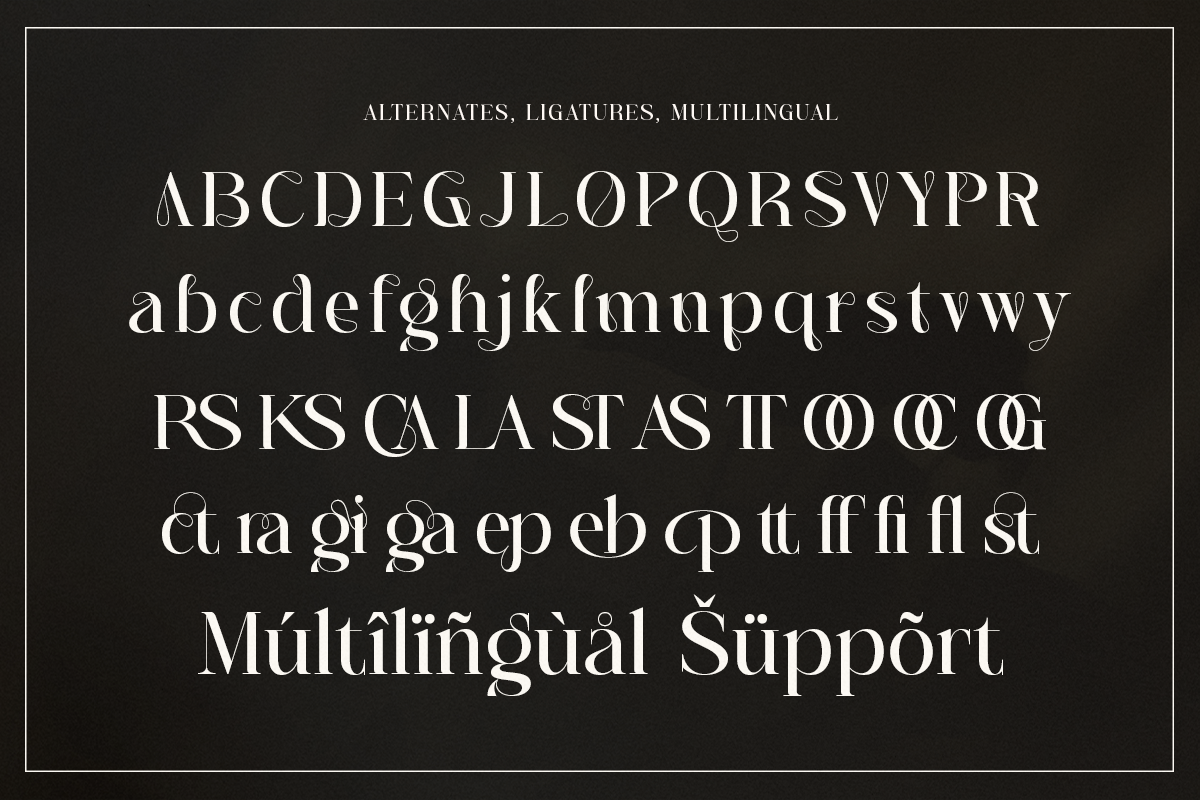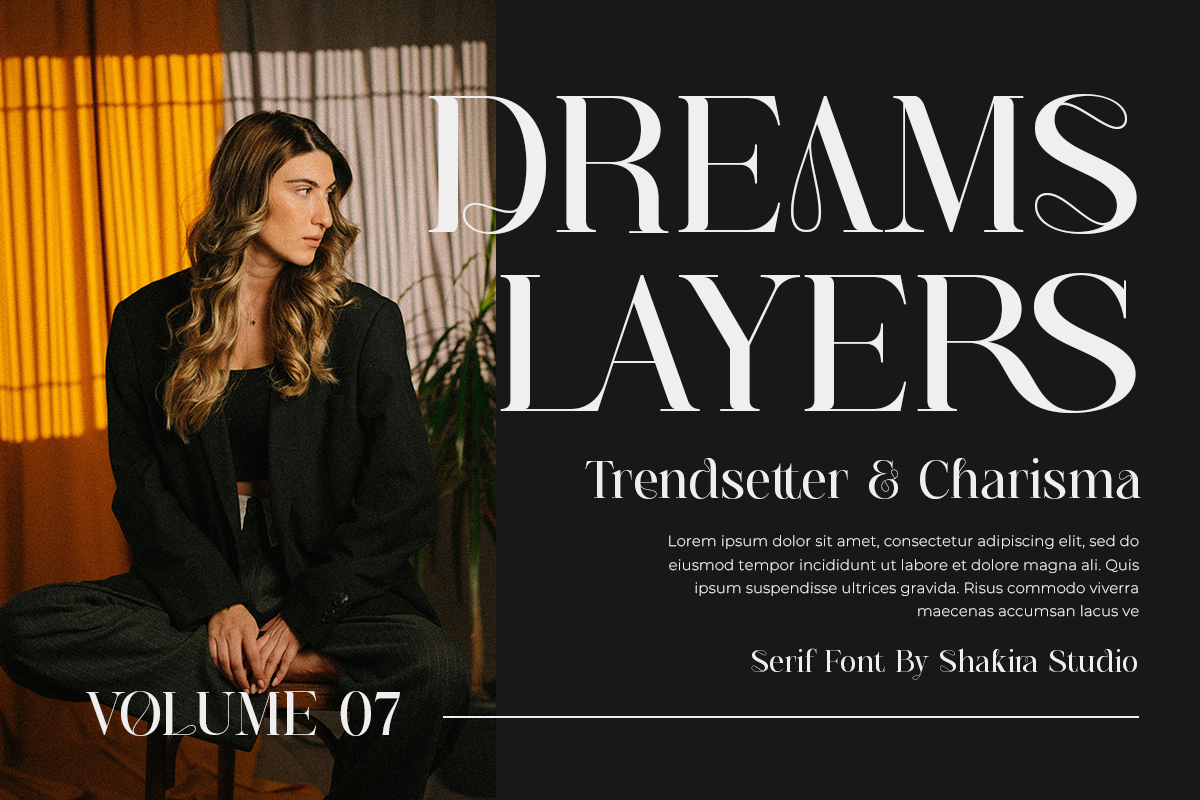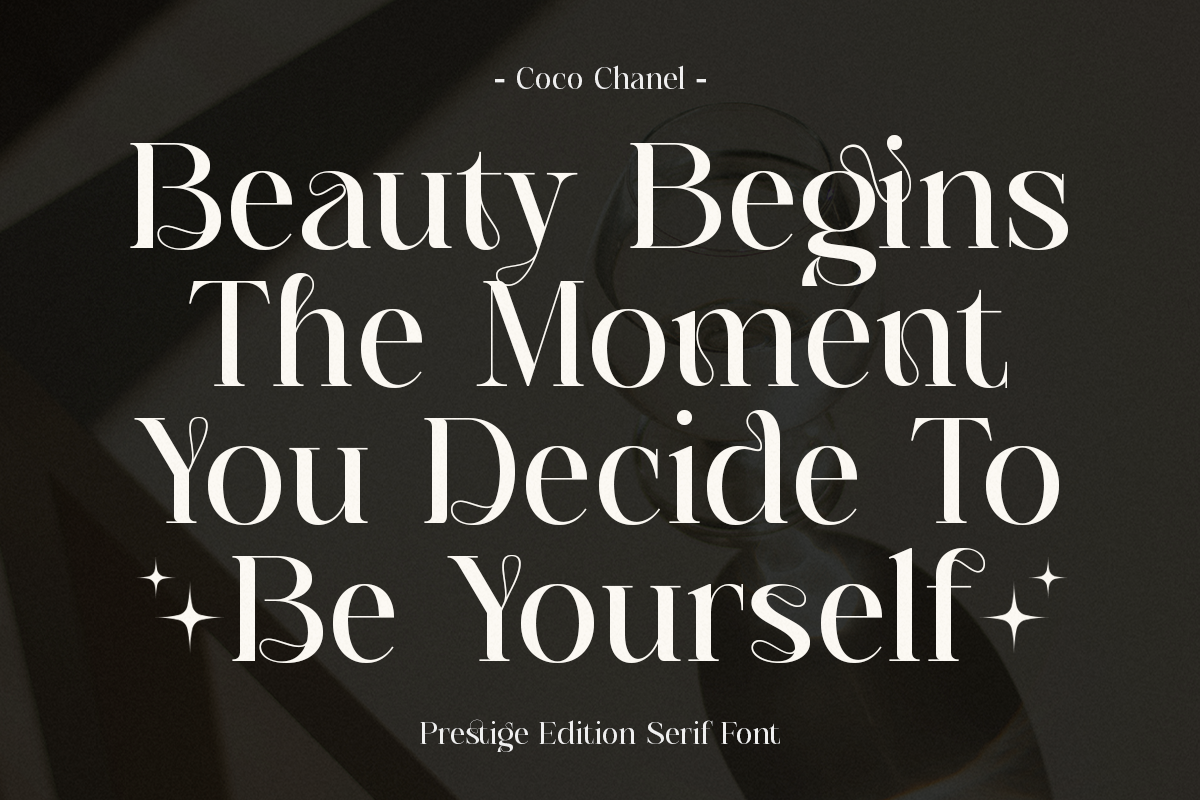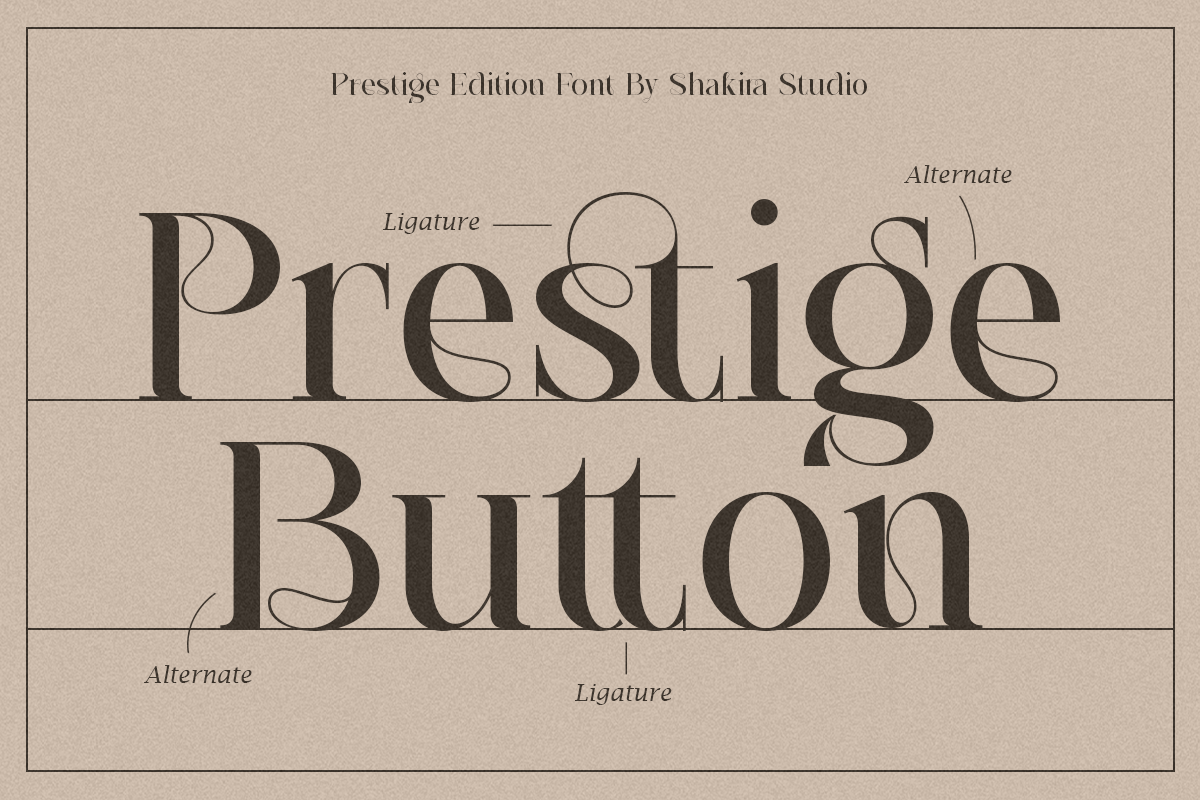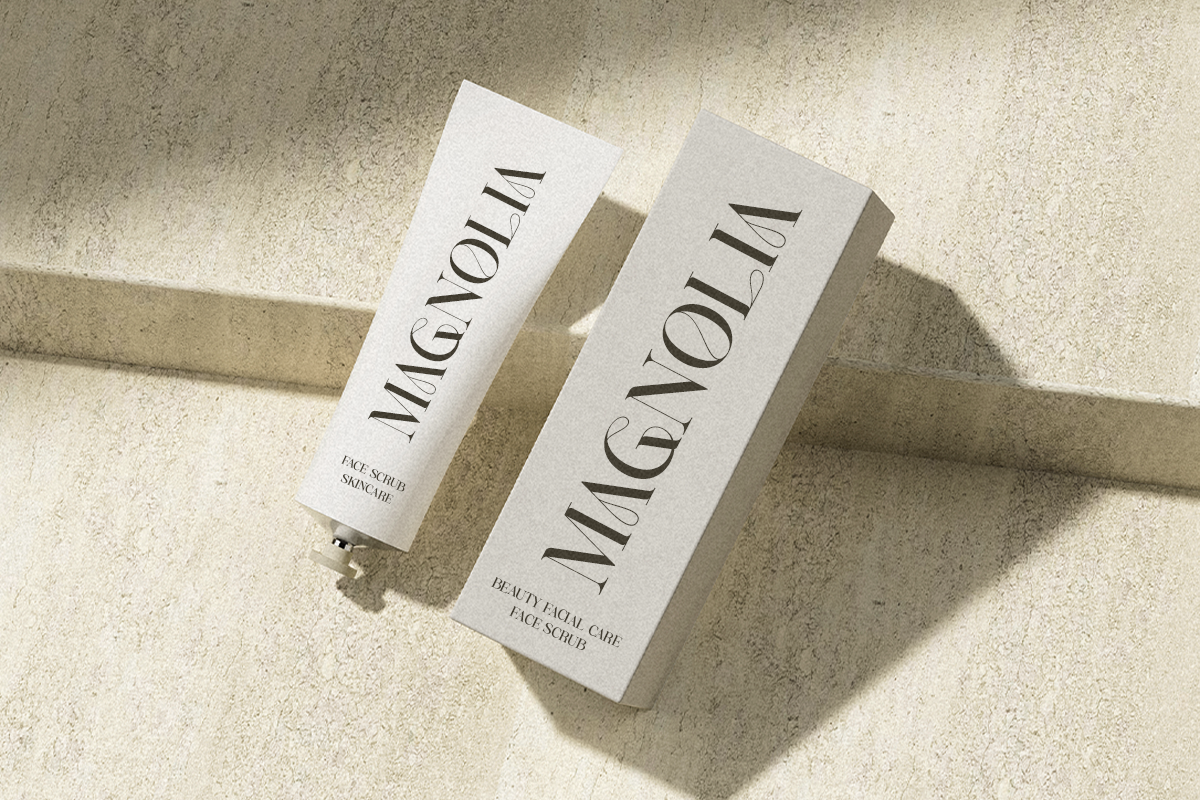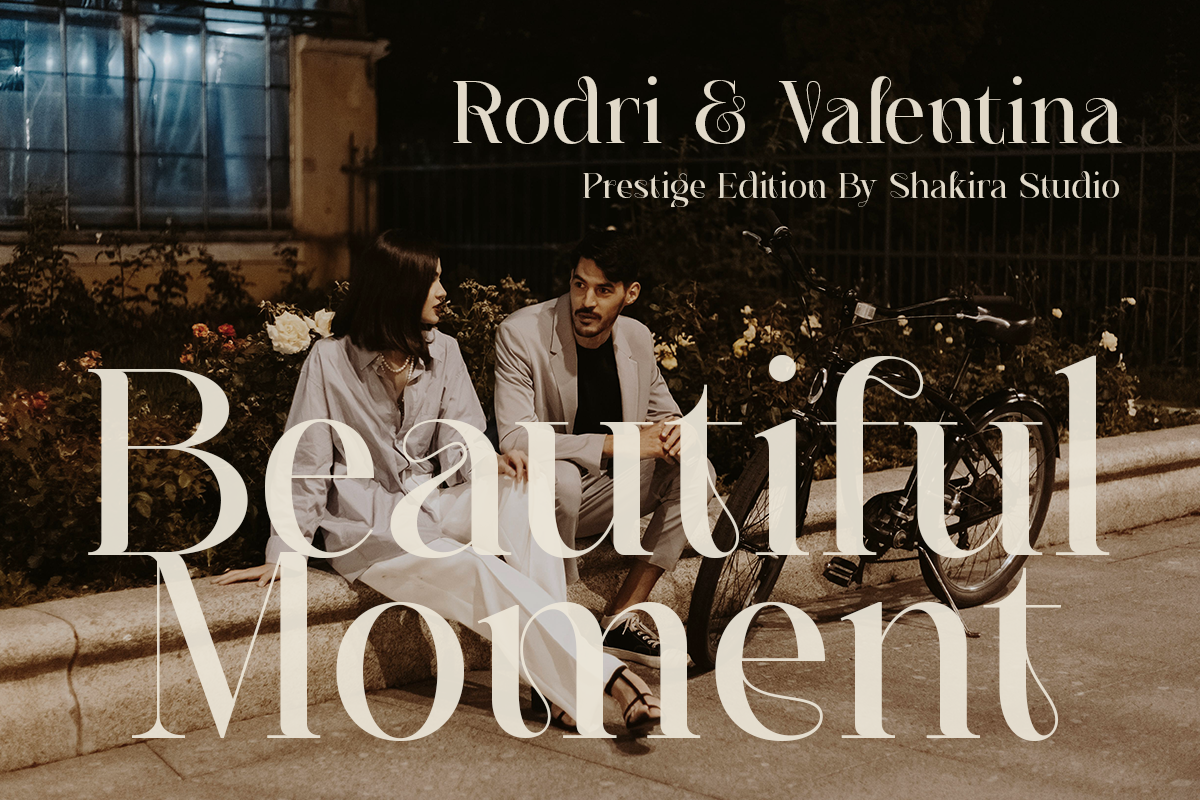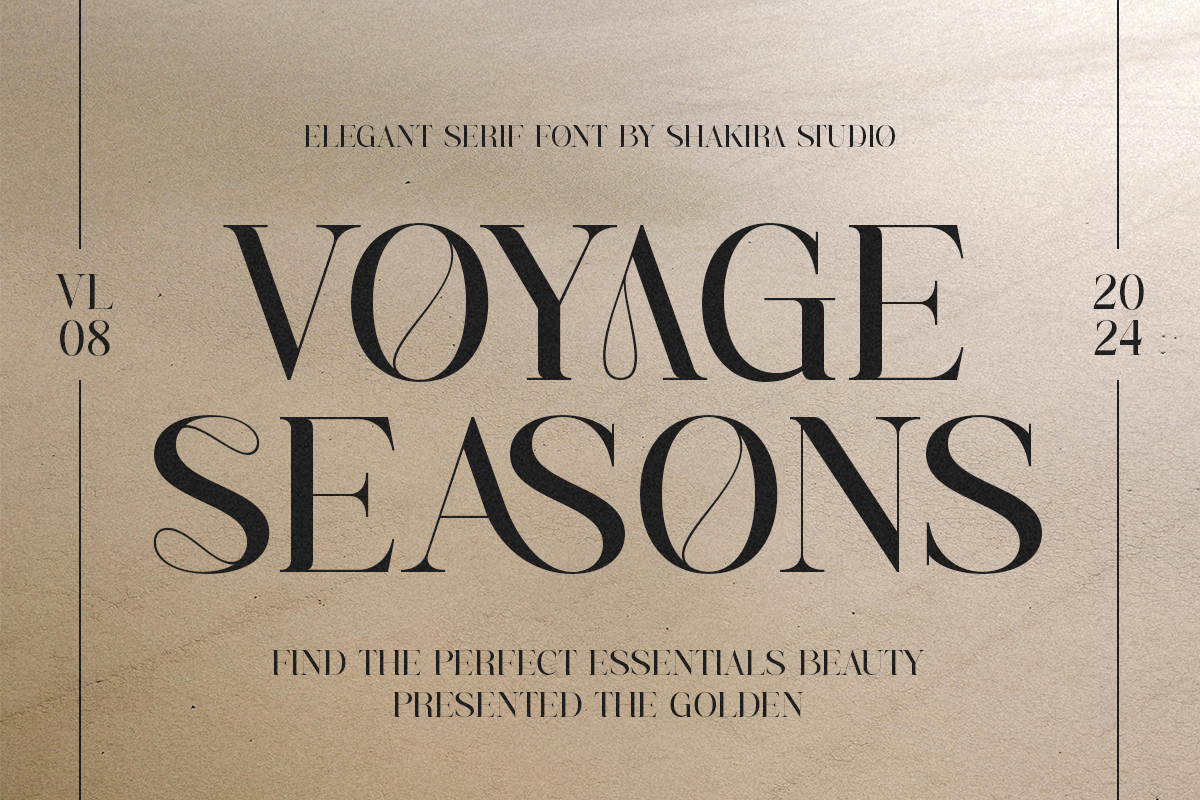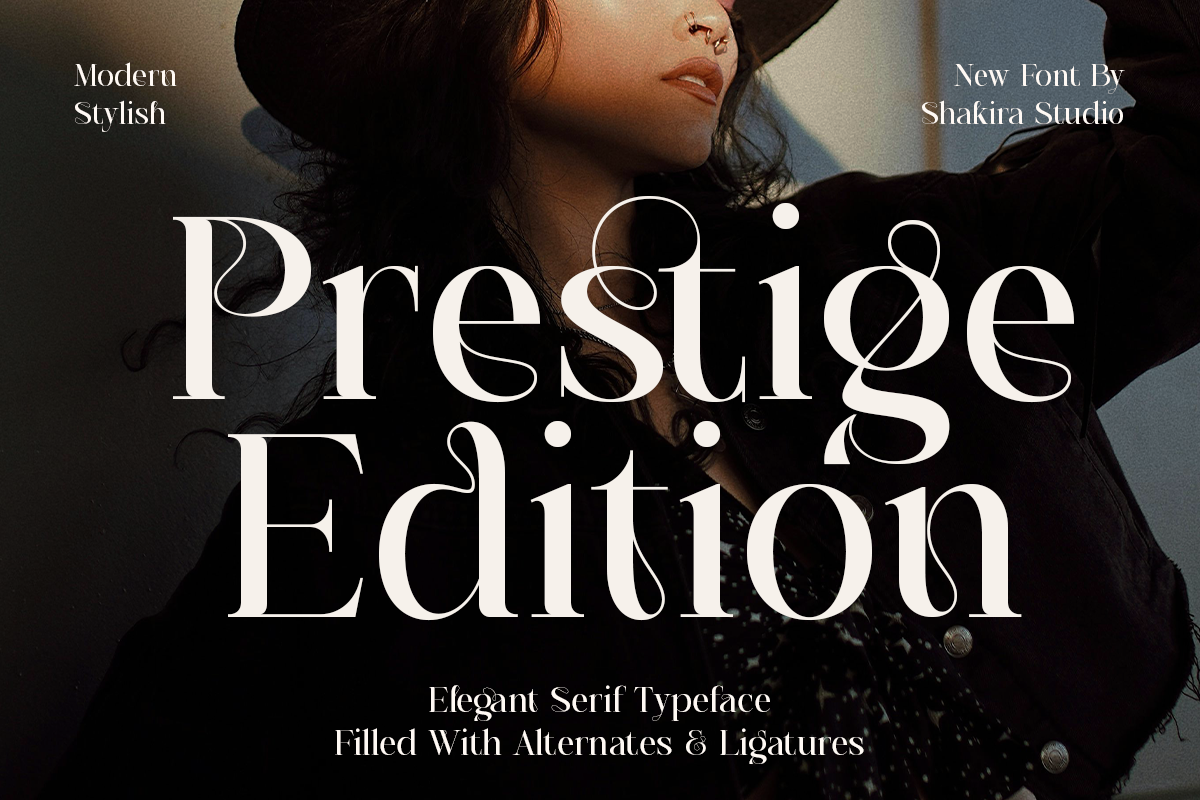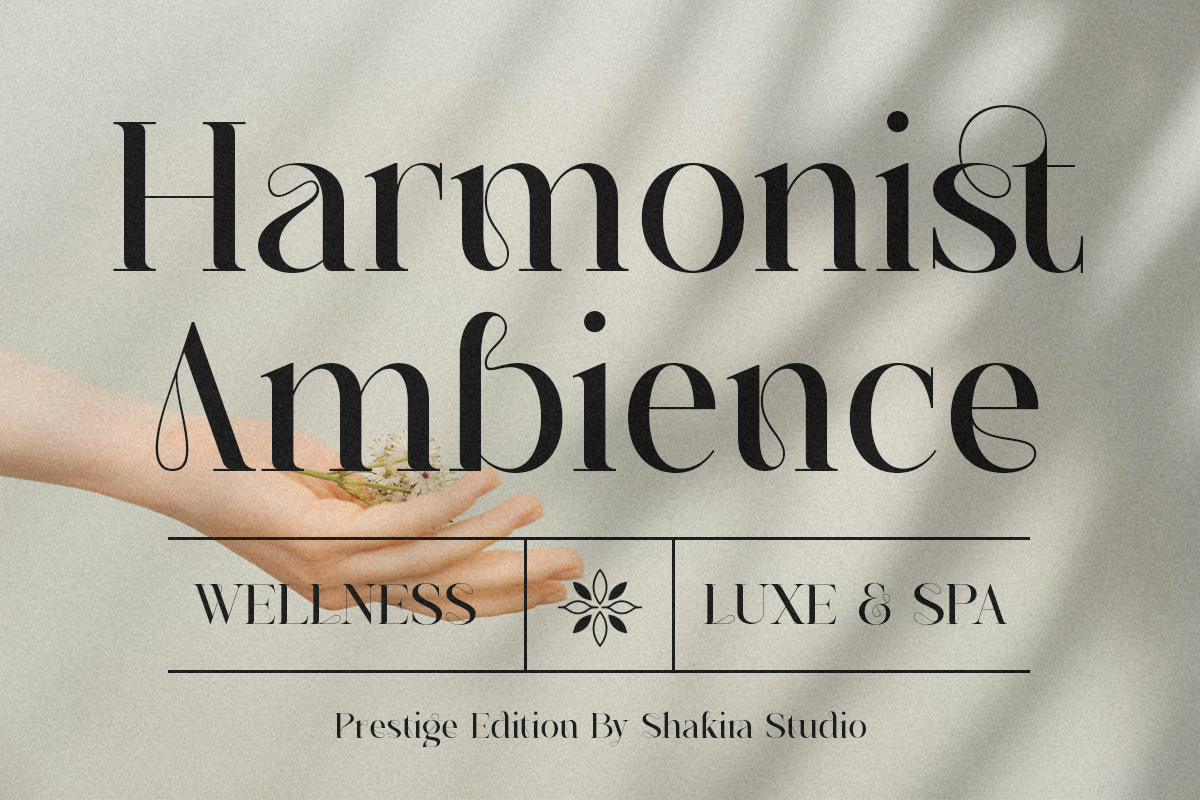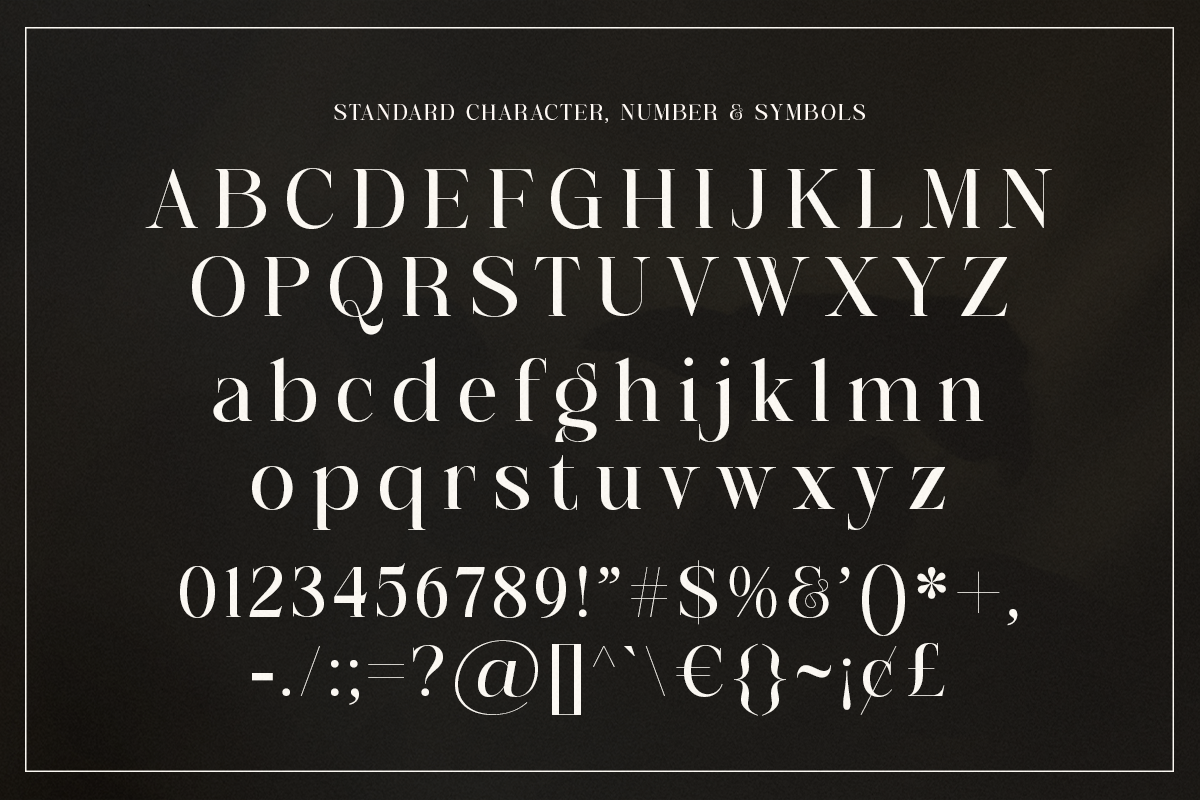
Prestige Edition - Elegant Typeface
"Introducing Prestige Edition, an elegant Display Serif font that exudes luxury and sophistication. This exquisite typeface is filled with a variety of attractive alternates and ligatures, making it perfect for high-end branding, fashion editorials, and upscale packaging. Prestige Edition is available in both regular and italic versions, offering versatility for your creative projects. Elevate your designs with the timeless elegance of Prestige Edition."
- Regular & Italic
- All Multilingual symbol
- Opentype features ( ligature, alternate )
Multilingual character supports : (Afrikaans, Albanian, Catalan, Croatian, Czech, Danish, Dutch, English, Estonian, Finnish, French, German, Hungarian, Icelandic, Italian, Lithuanian, Maltese, Norwegian, Polish, Portuguese, Slovenian, Spanish, Swedish, Turkish, Zulu)